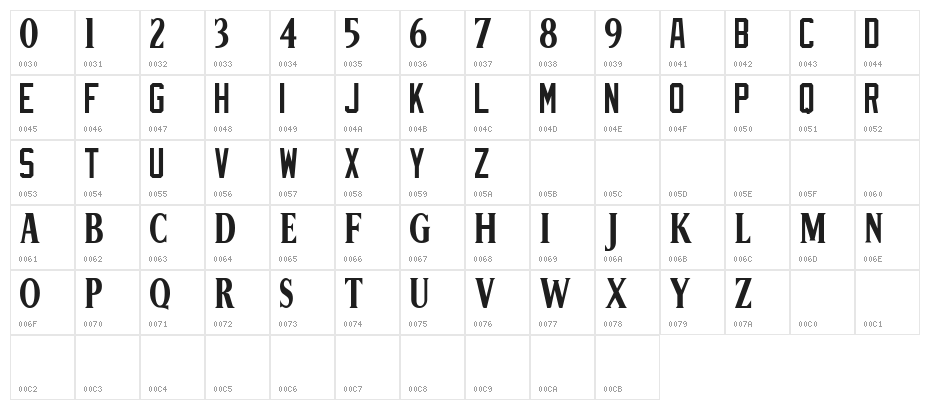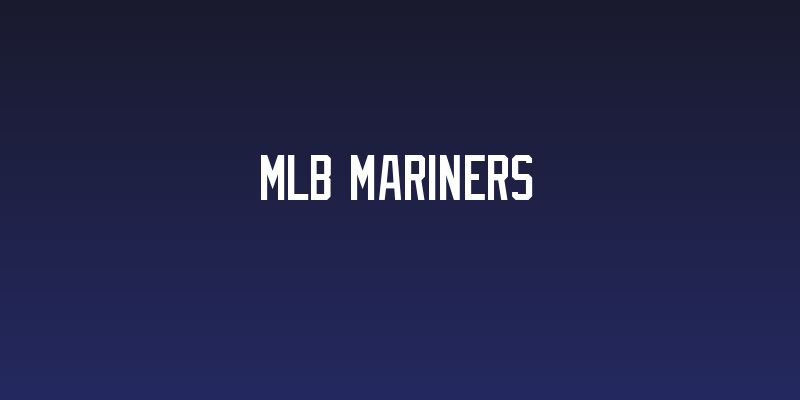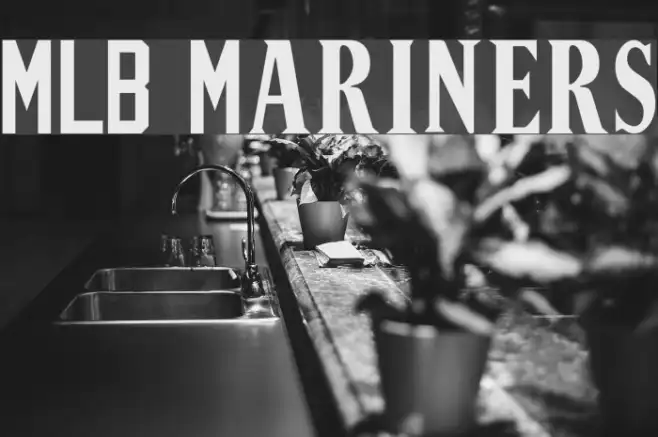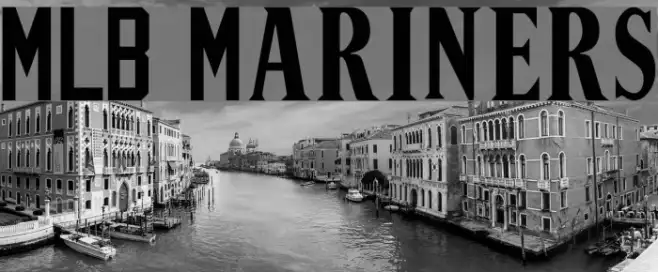
MLB Mariners Font
MLB Mariners Description
This font features a bold and commanding presence with its strong, angular lines and geometric shapes. The uppercase letters are characterized by their blocky, robust forms, while the lowercase letters maintain a consistent style with slightly softer edges. The numerals are equally bold, ensuring they stand out clearly. This typeface is designed to convey strength and authority, making it ideal for impactful headlines or branding. The lack of special characters suggests a focus on simplicity and directness, emphasizing the core alphanumeric set.